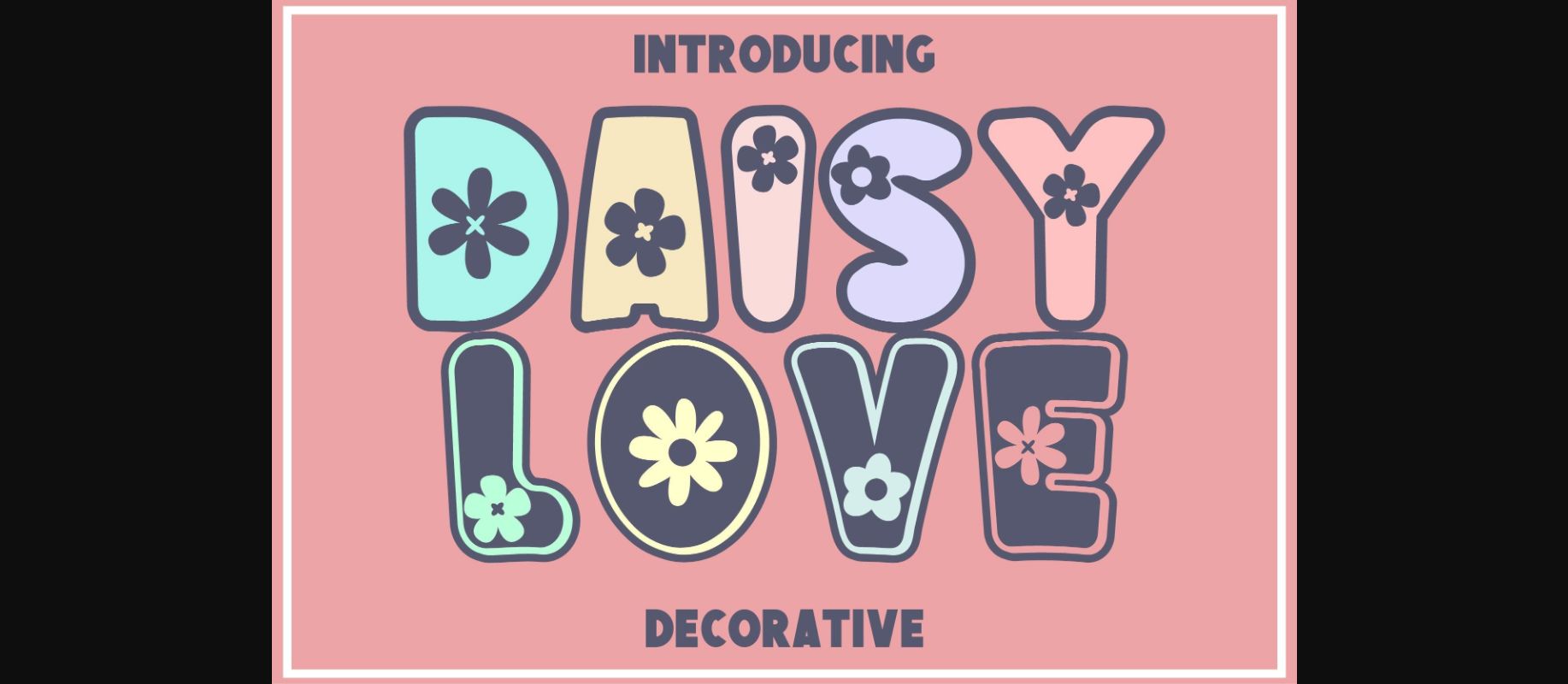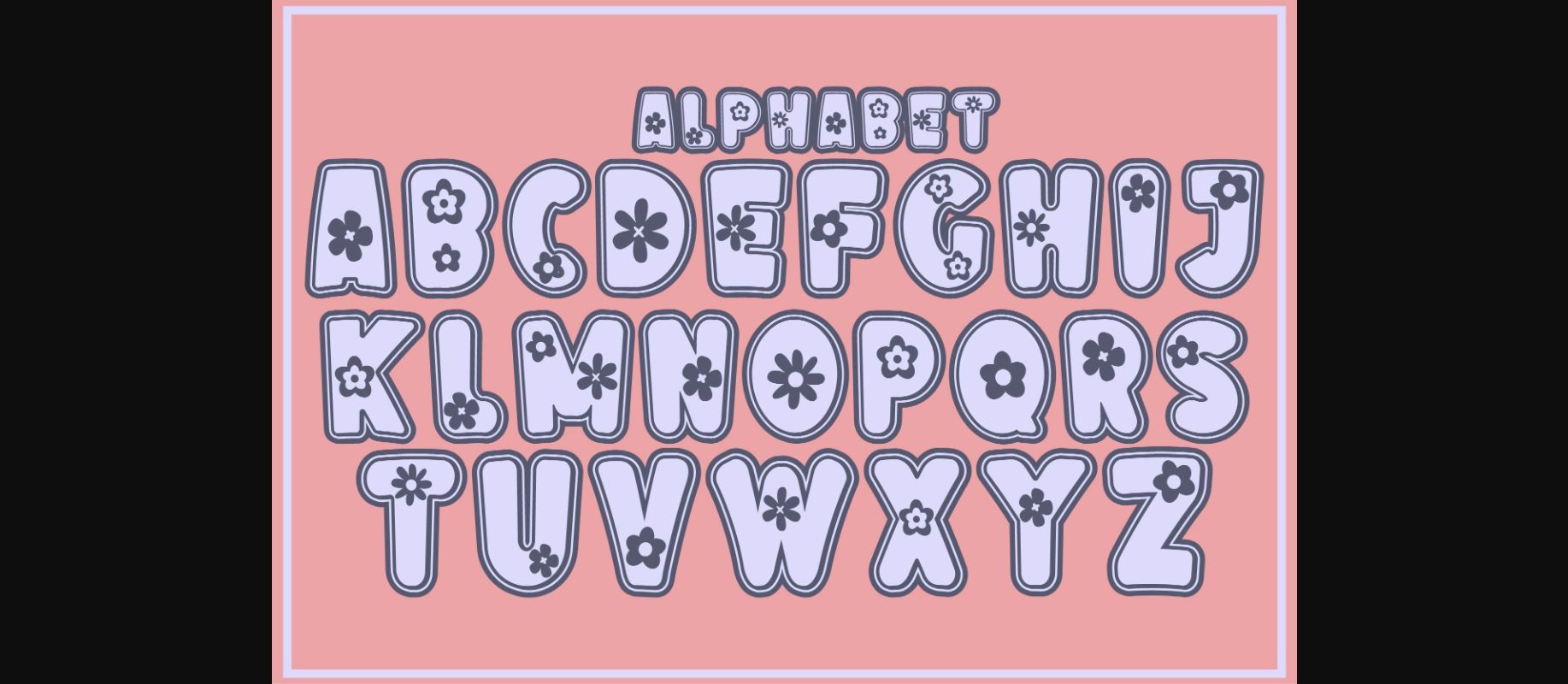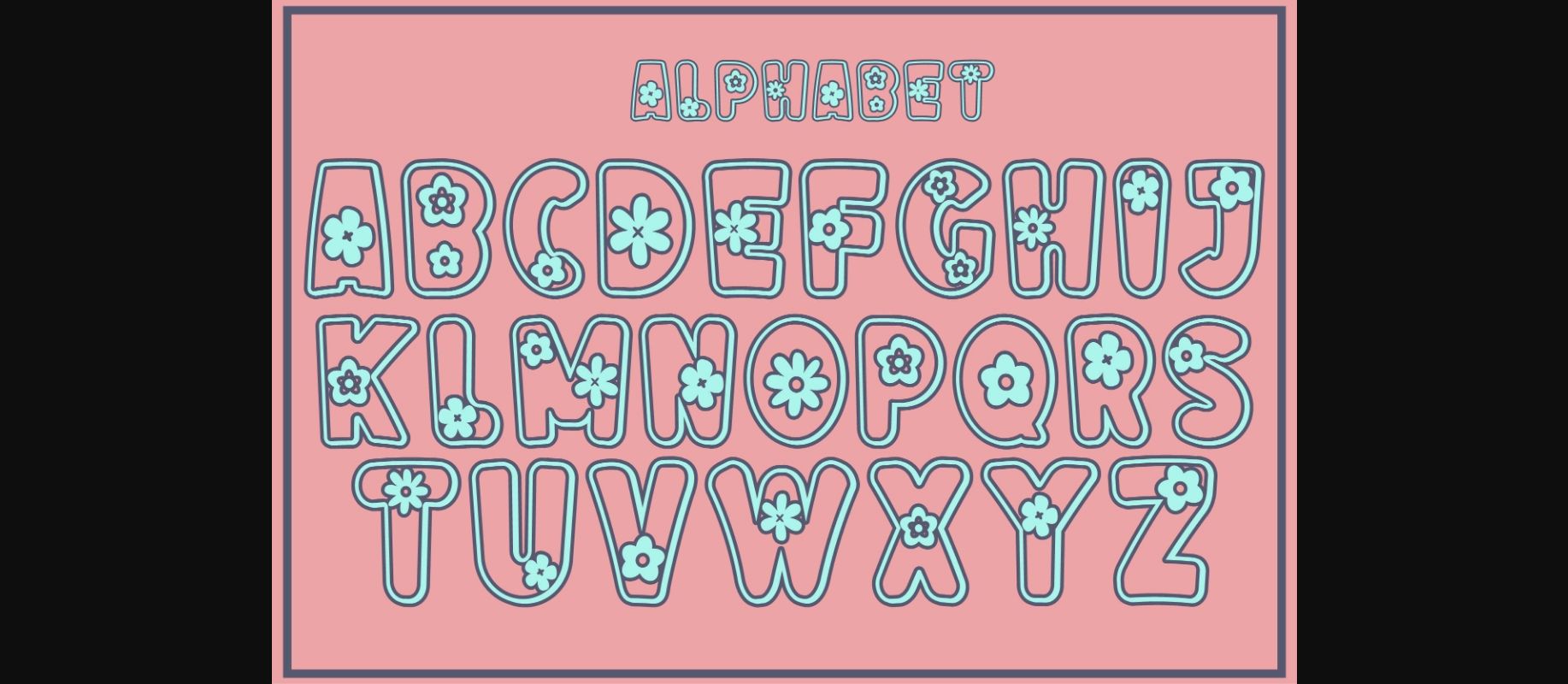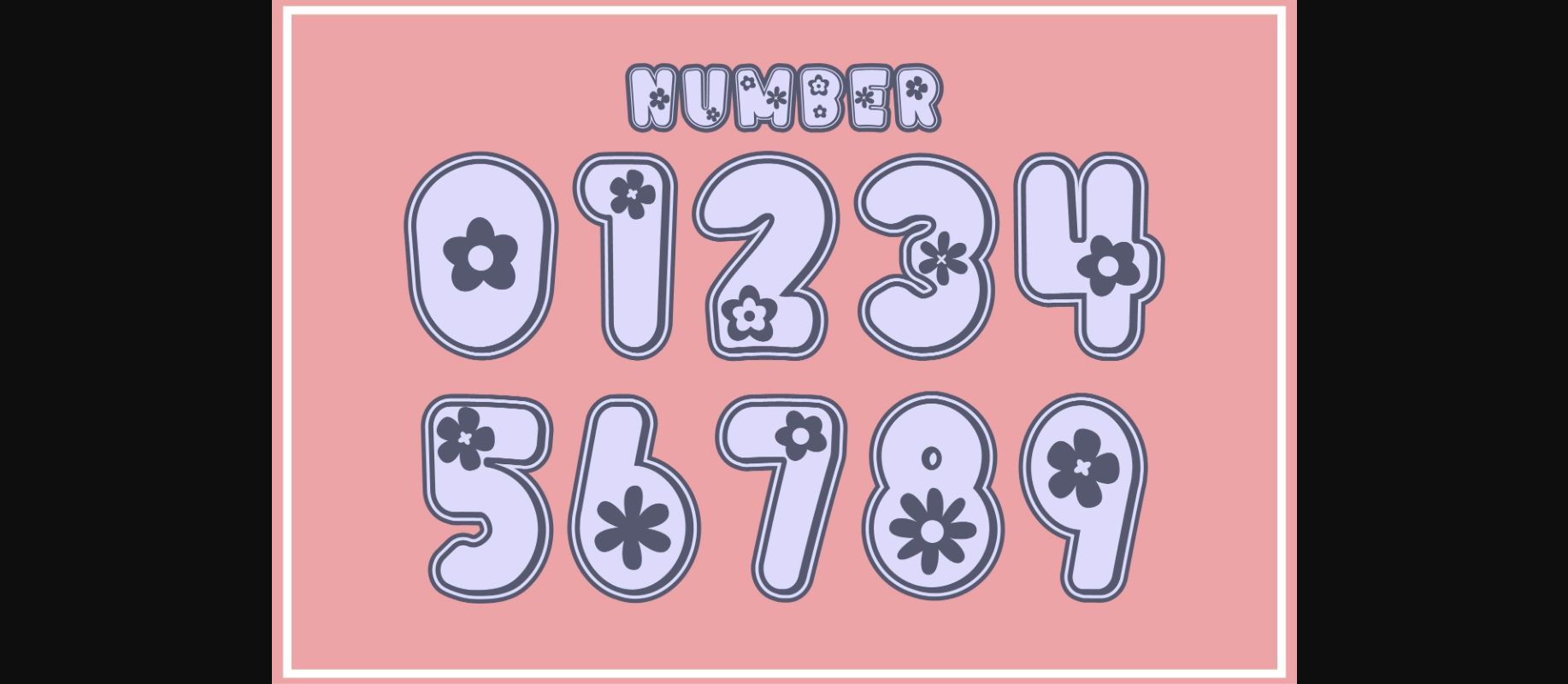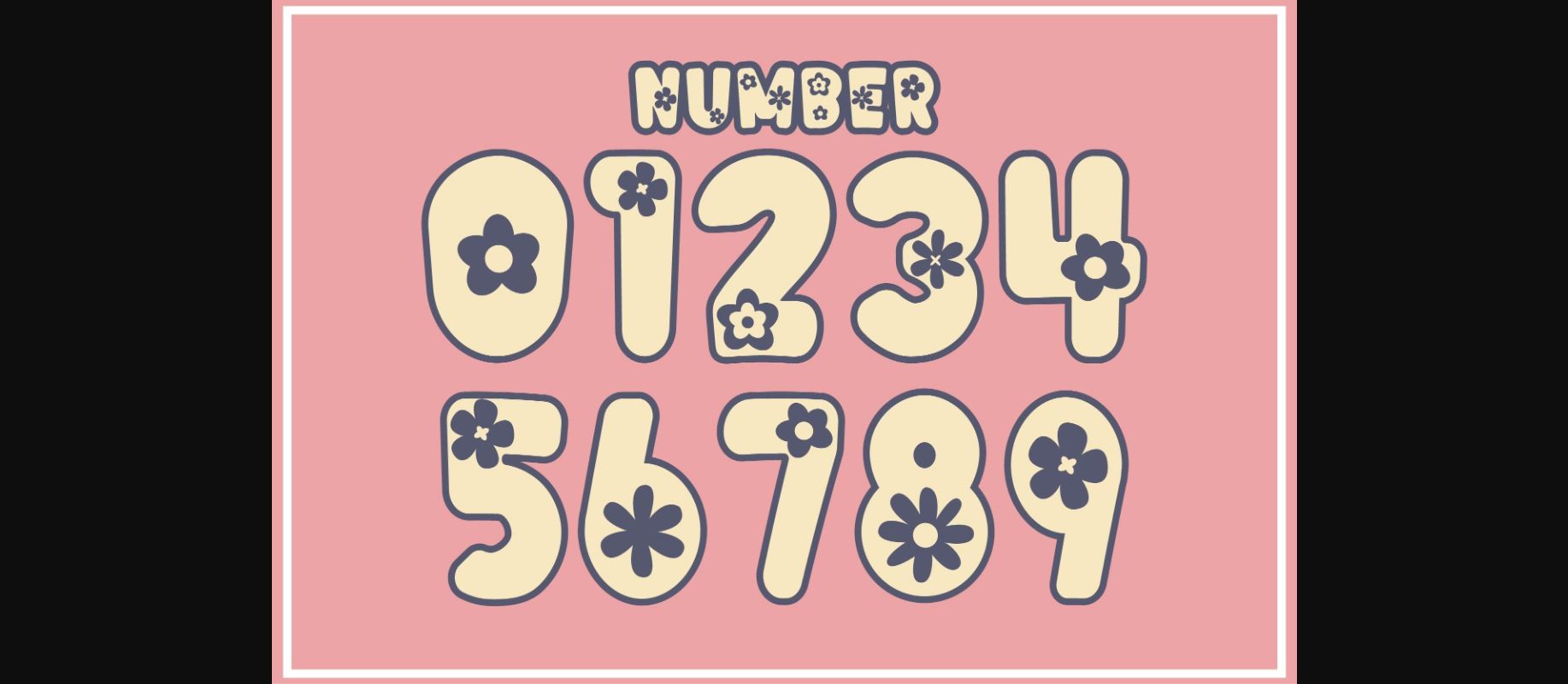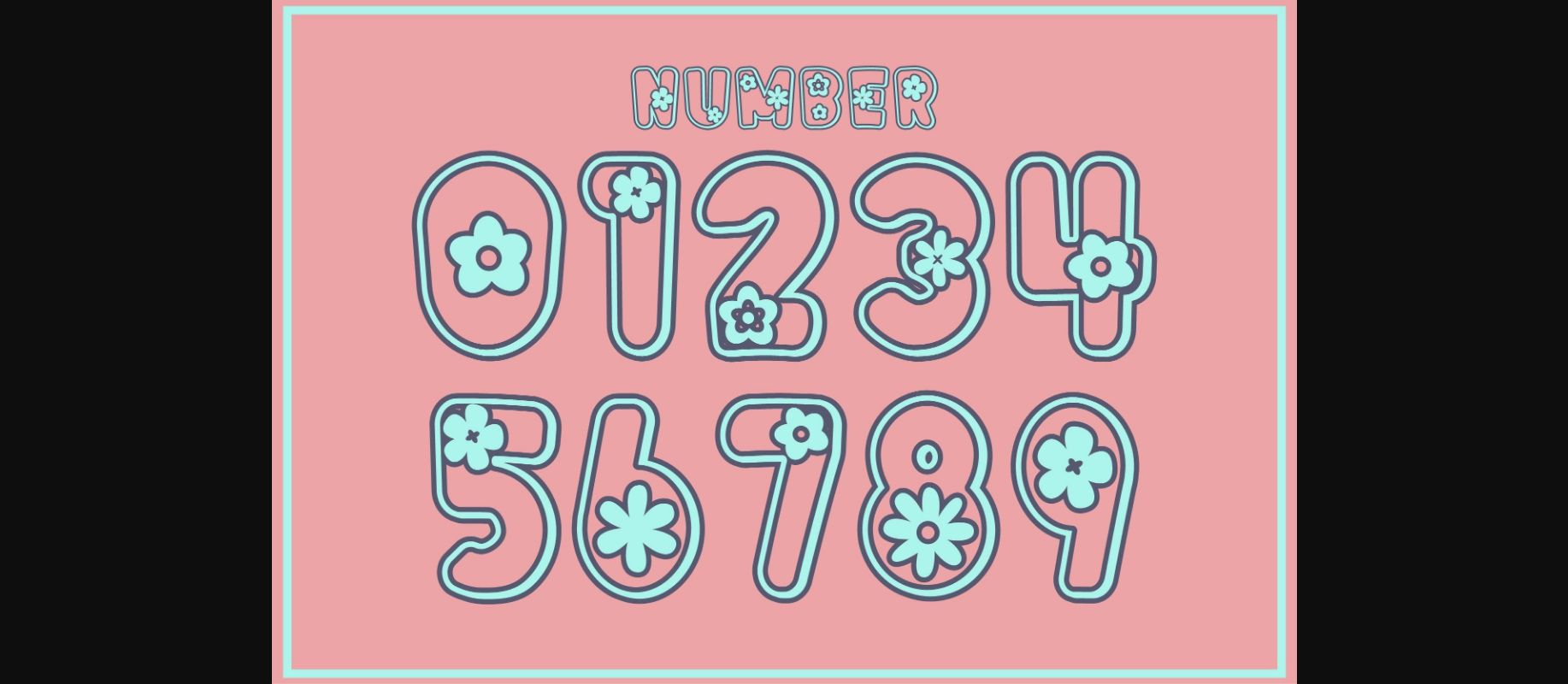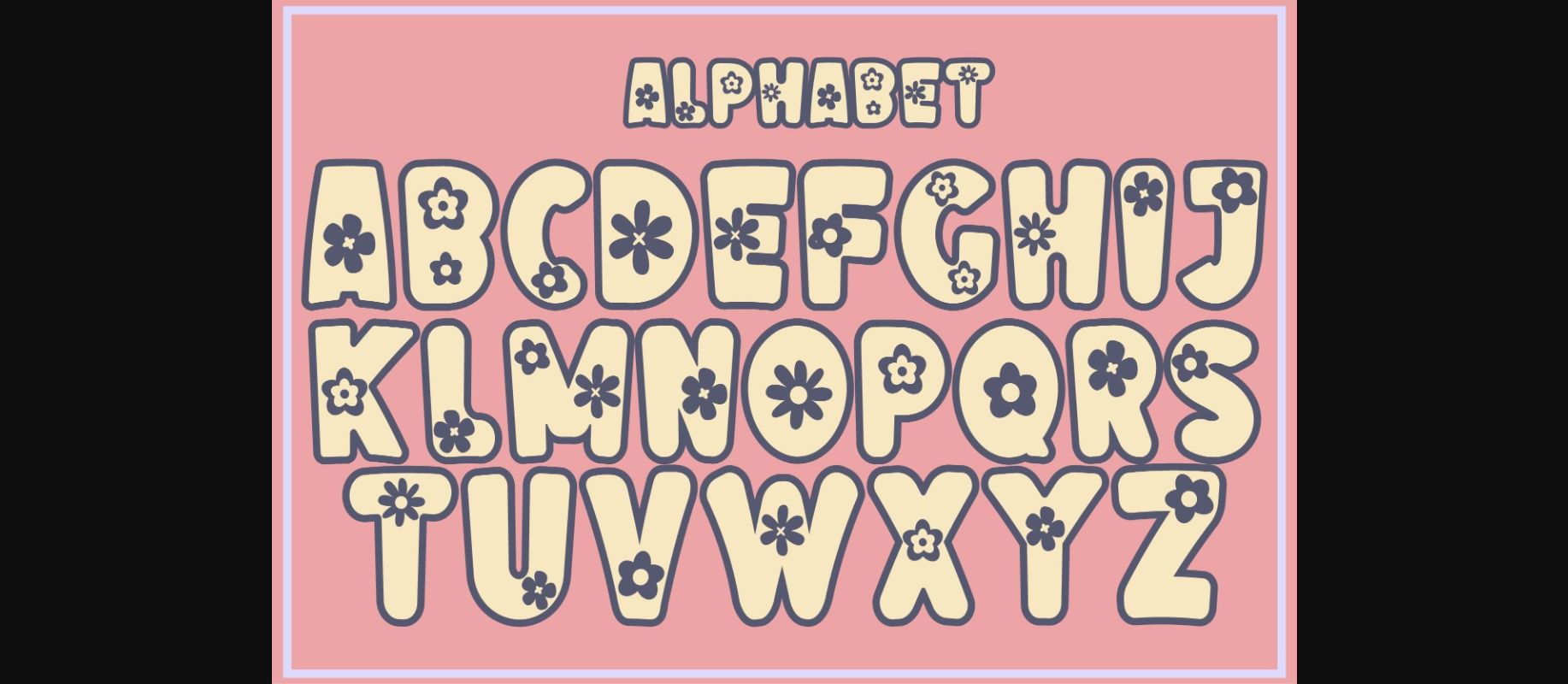
Daisy Love Font
About Daisy Love Font
Daisy Love is a cute and adorable floral decorative font. Whether you are using it for cartoon-related designs, children’s games, quotes, titles, brand names, book covers, posters, or just any creation that requires a touch of joy, this font is a great choice.